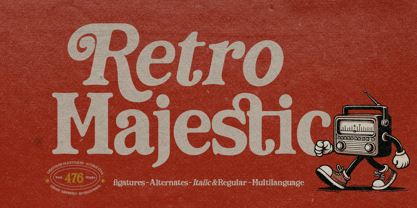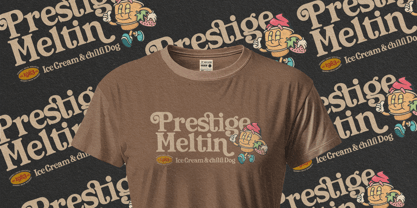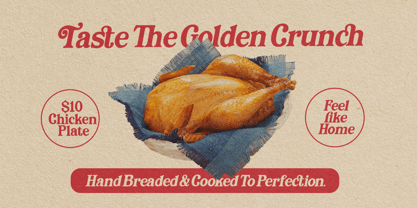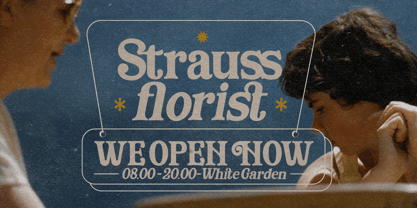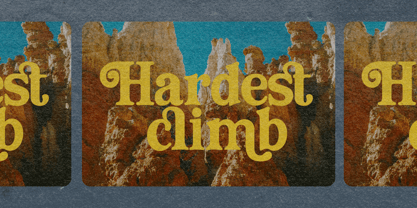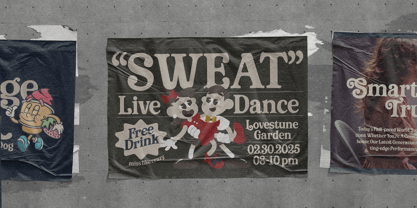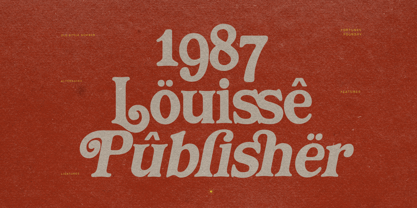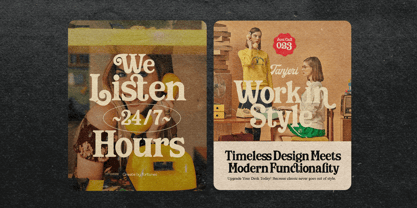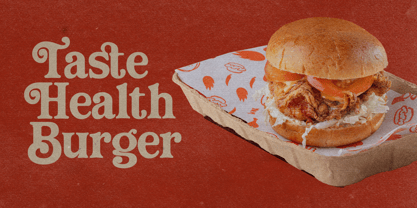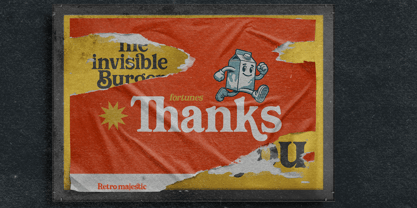
Fd Retro Majestic
by Fortunes Co
The Fd Retro Majestic Font Family was designed by Ramandhani Nugraha and published by Fortunes Co. Fd Retro Majestic contains 2 styles and family package options. More about this family
Introducing Retro Majestic , a retro-inspired serif font designed for eye-catching advertising, bold headlines, and timeless branding. With its thick, elegant letterforms and subtle curves, this typeface blends mid-century charm with modern versatility, making it perfect for posters, packaging, logos, and editorial design.
Featuring high-contrast strokes, smooth edges, and stylish retro flair, retro majestic evokes the golden era of advertising while maintaining flawless readability. Whether you're crafting a classic luxury ad, a nostalgic brand identity, or a bold print campaign, this font delivers impact and sophistication in every letter.